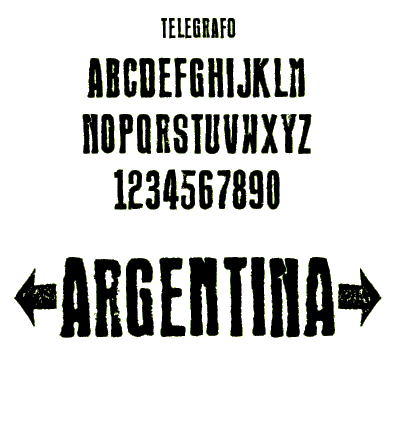
This font is based on a few letters in the heading of a 1920s Argentinian telegram which is, regrettably, no longer in my possession. It is a very rough, all-upperase alphabet.